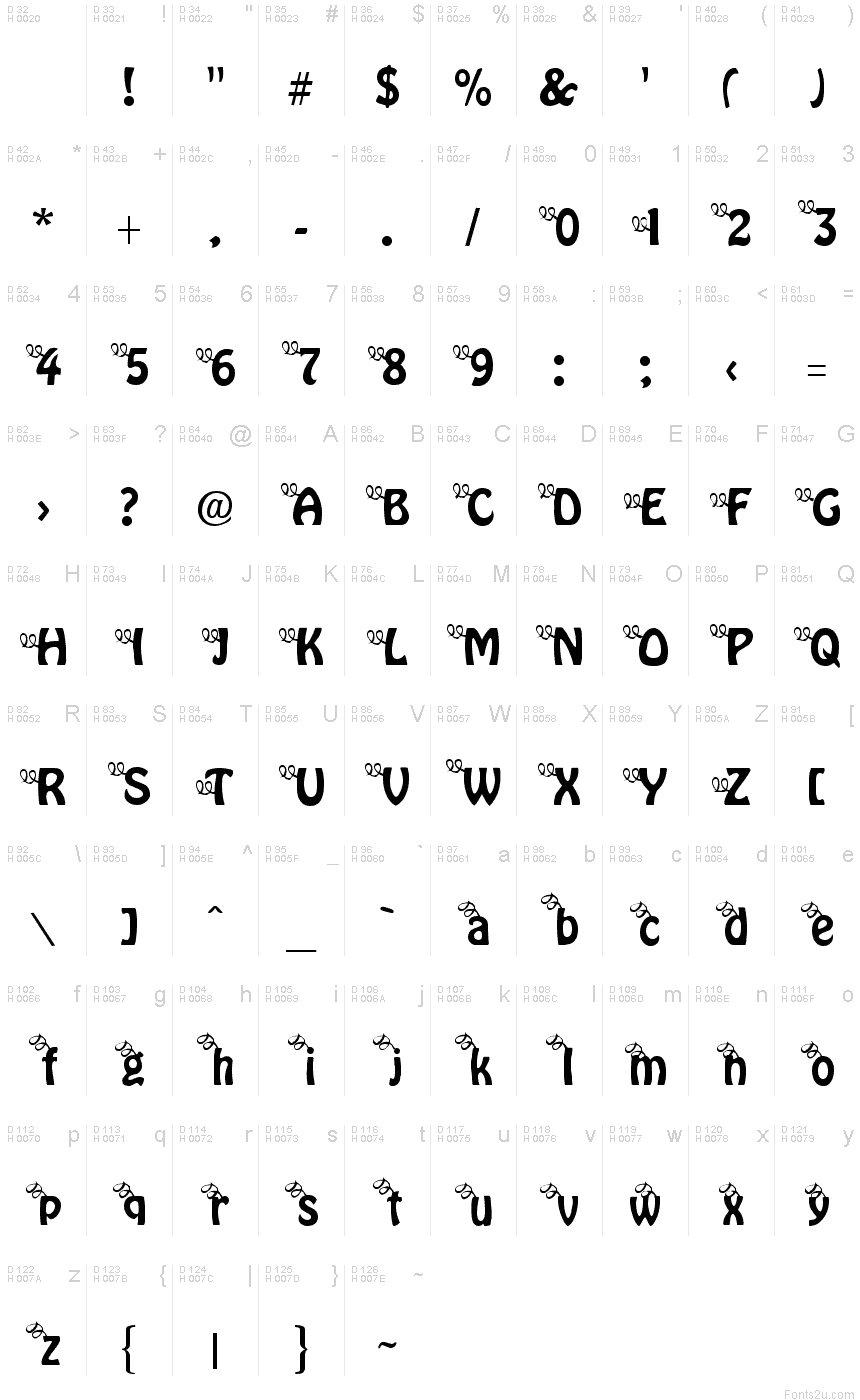
Three Little Pink Pigs
Three Little Pink Pigs by Melle Derieppe Claude is a free pig-themed display font that turns each letter into a blunt black form topped with tight curly tails. That repeated spiral motif gives the lettering a comic farmyard identity, while the soft, swollen shapes keep the joke readable as a coordinated design rather than a one-off novelty gag.
For children's book covers, party invitations, farm market signs, themed scrapbook titles, and petting zoo posters, Three Little Pink Pigs has enough character to do more than label the page. The curl-and-block contrast also makes it useful for playful packaging or headline badges where a plain decorative font would feel generic.